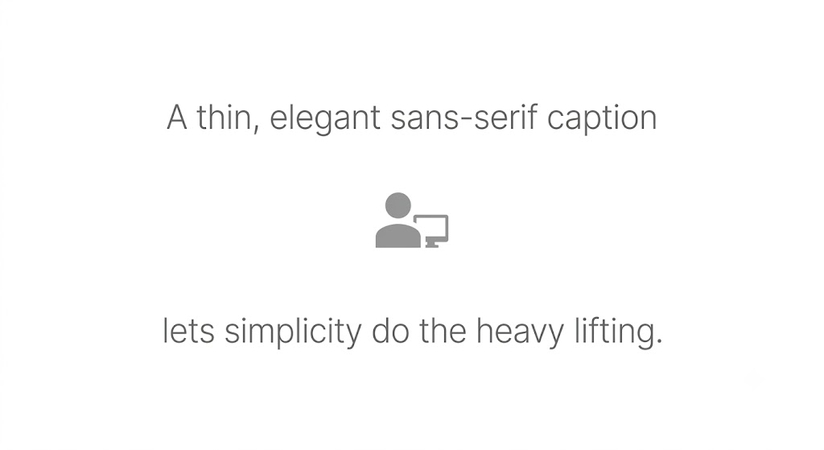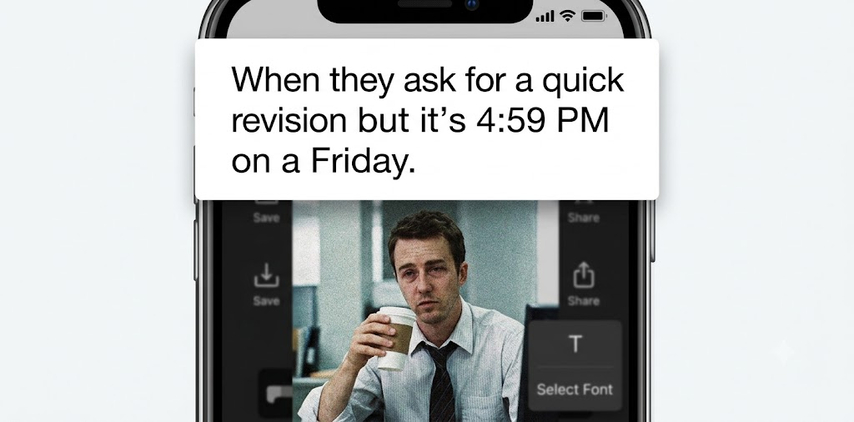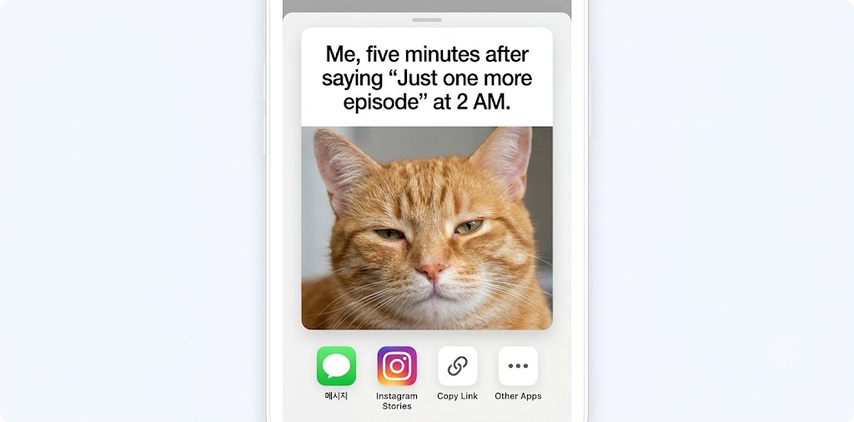
White Background Meme Fonts: 20 Popular Ideas for Creating Viral Memes
Internet cultures tend to move fast and have shifted from complex edited images to clean layouts. A clean white background meme font makes a joke land instantly.
Some of the internet's most shared images pair a spare white canvas with bold, easy-to-read text, including the Spider-Man Pointing Meme and the Confused Math Lady iconic meme.
This post explains what makes a font work on a white background and reveals 20 outstanding White background font memes.
Part 1: What Is a White Background Meme Font?
A white background meme font refers to the clean, highly legible typography used at the top or bottom of a modern, minimalist meme template. Unlike traditional 2010s-era memes that slapped thick, white Impact text with black outlines directly over an image, modern formats separate the text from the media.
By placing clear text inside a dedicated white border, creators give their content breathing room. This format replicates the native look of platforms like X (formerly Twitter), Threads, and Tumblr, making the content feel organic rather than over-produced.
Part 2: Best Fonts for White Background Memes Compared
To find the perfect balance between casual humor and crisp readability, creators use distinct typefaces to convey the emotion they want to convey.
FontStyleBest ForReadability
ImpactBold, condensedClassic reaction memesVery high
HelveticaClean sans-serifWorkplace, professional toneHigh
ArialNeutral sans-serifGeneral-purpose captionsHigh
Comic SansRounded, casualPlayful or ironic memesMedium
MontserratModern, geometricMinimalist memesHigh
Selecting the correct style ensures that your audience focuses entirely on the humor rather than struggling to decipher the message.
Part 3: 20 White Background Meme Font Ideas for Different Meme Styles
1. White Background Meme Fonts for Reaction Memes (1-5)
Reaction memes rely on quick emotional impact, so the font should be bold, easy to read, and instantly recognizable. Clean sans-serif fonts work best here because they keep the focus on the joke while keeping the layout minimal, and a heavier font weight helps the caption hold up even in tiny preview thumbnails.
1. Blank Stare Realization
A single bold Impact-style line across a plain white background captures that speechless, did-that-just-happen moment perfectly.
2. Slow Blink Energy
A short caption in bold black font conveys quiet disbelief without needing extra visuals.
3. Internal Screaming
Large bold text in a bright accent color exaggerates panic for maximum comic effect.
4. Poker Face Mode
A minimal grey sans-serif caption suits deadpan, understated humor.
5. Plot Twist Reaction
Bold centered text split across two lines builds dramatic pacing before the punchline lands.
2. White Background Meme Fonts for Workplace Memes (6-10)
Workplace memes need to be read clearly at a glance, since most people see them in chat apps and small preview windows. A clean, professional font keeps the joke sharp without looking sloppy on a busy screen, and neutral colors help the meme feel appropriate for a work chat rather than out of place.
6. Monday Morning Mood:
A soft grey sans-serif caption paired with a plain white backdrop nails that low-energy start-of-week feeling.
7. Meeting That Should Have Been an Email
Bold black text with short, punchy phrasing works best for office frustration.
8. Deadline Panic
A slightly larger, bold red font emphasizes urgency and stress.
9. Out of Office Bliss
A light, airy font in a pastel tone suits relaxed, vacation-mode humor.
10. Reply All Chaos
Bold capital letters convey the escalating panic of an inbox spiraling out of control.
3. White Background Meme Fonts for Social Media Memes (11-15)
Social media memes are usually viewed on small phone screens, so fonts need to stay bold and legible even at a glance while scrolling, and rounded or slightly playful styles tend to feel more native to casual feeds than strict, formal typefaces.
11. Scroll and Relate
A bold, rounded sans-serif caption feels friendly and instantly shareable across platforms.
12. Notification Anxiety
Sharp, bold text mimics the jittery feeling of constant pings and alerts.
13. Algorithm Mood
A slightly playful font style suits jokes about unpredictable feeds and recommendations.